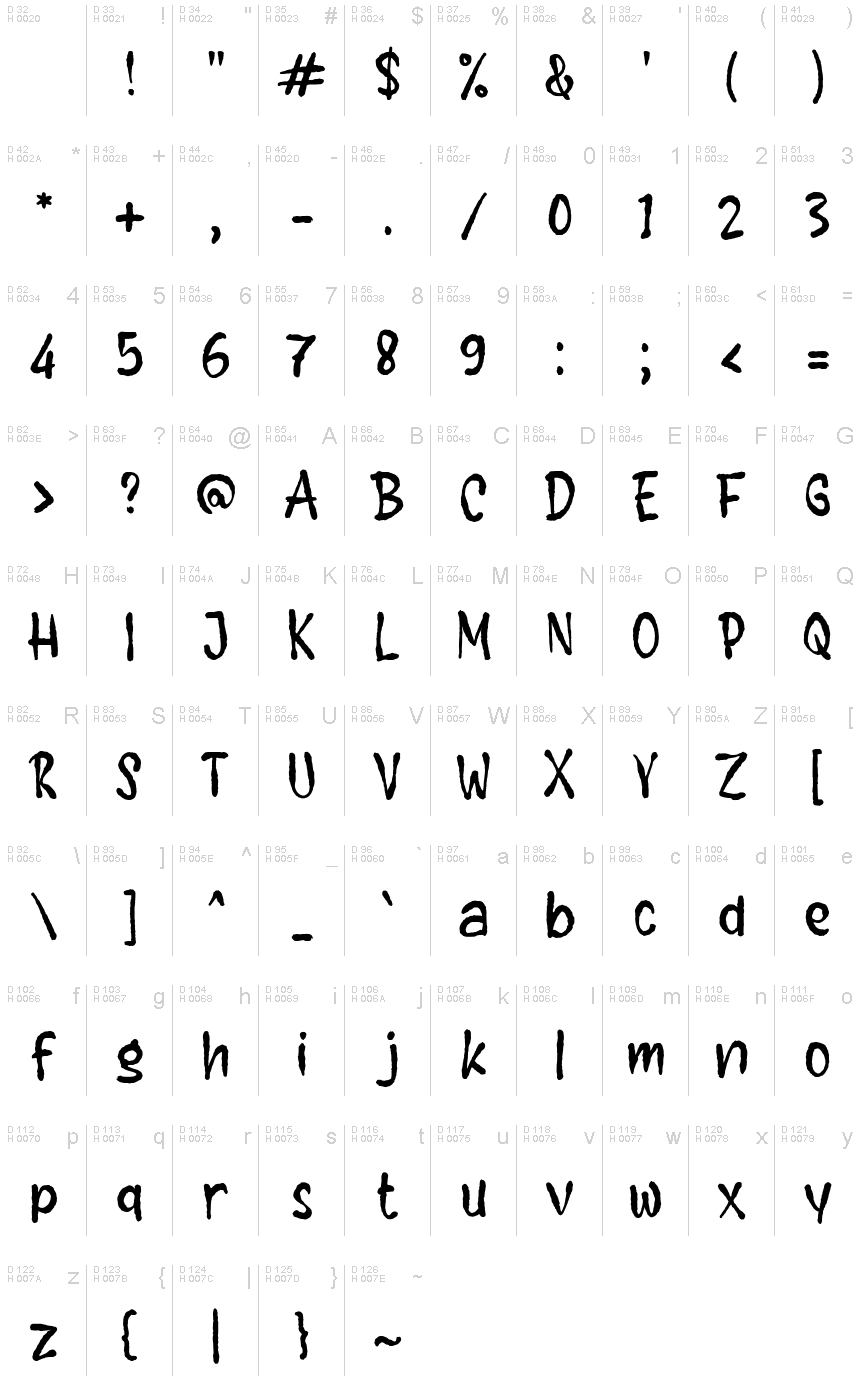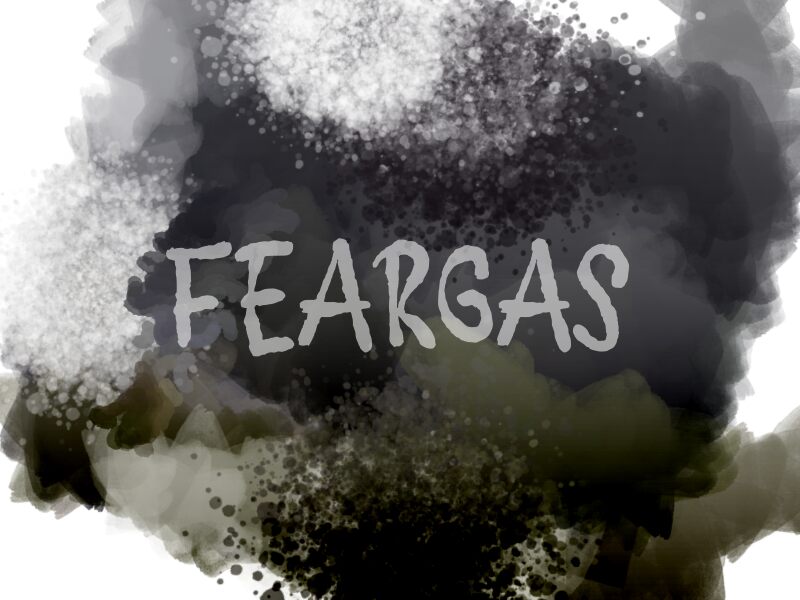
FEARGAS
Feargas, designed by wep, stands as a chilling tribute to the macabre. Its jagged contours and eerie asymmetry evoke images of a spine-tingling horror scene, perfectly embodying the scary display genre. The font's sharp angles and unpredictable forms seem to cast shadows on the page, suggesting an unsettling presence that lingers long after the first glance.
Its haunting aesthetic makes Feargas ideal for horror-themed projects such as book covers, movie posters, Halloween promotions, and any design work seeking to stir a sense of unease or suspense. With its powerfully spooky personality, this font is sure to make a memorable impact wherever dread and drama are desired.